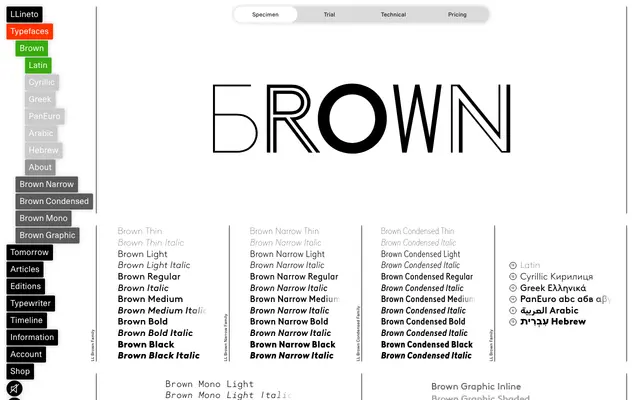
LL Brown
Lineto · Aurèle Sack · 2011
LL Brown specimen from Lineto
A geometric sans by Aurèle Sack fusing Johnston Sans and Super Grotesk, grown into a large superfamily with Latin, Cyrillic, Greek, Arabic and Hebrew coverage.
Conceived at the suggestion of Zurich designers Lex Trüb and Urs Lehni in 2007, LL Brown draws on two historically loaded geometric sans serifs: Johnston Sans, the typeface of London's public transport, and Super Grotesk, which became ubiquitous in East Germany. Aurèle Sack refined and extended the family over more than a decade, adding Narrow and Condensed companions in 2022, a Mono subfamily, and decorative Graphic styles. Non-Latin scripts were developed in collaboration with specialists in Cyrillic, Greek, Arabic and Hebrew, making it one of the more thorough multi-script geometric sans families available.
LL Brown is a geometric sans rooted in Johnston Sans and Super Grotesk, two early 20th-century geometric designs; its clean geometry, open apertures and systematic construction place it firmly in the geometric sans tradition.